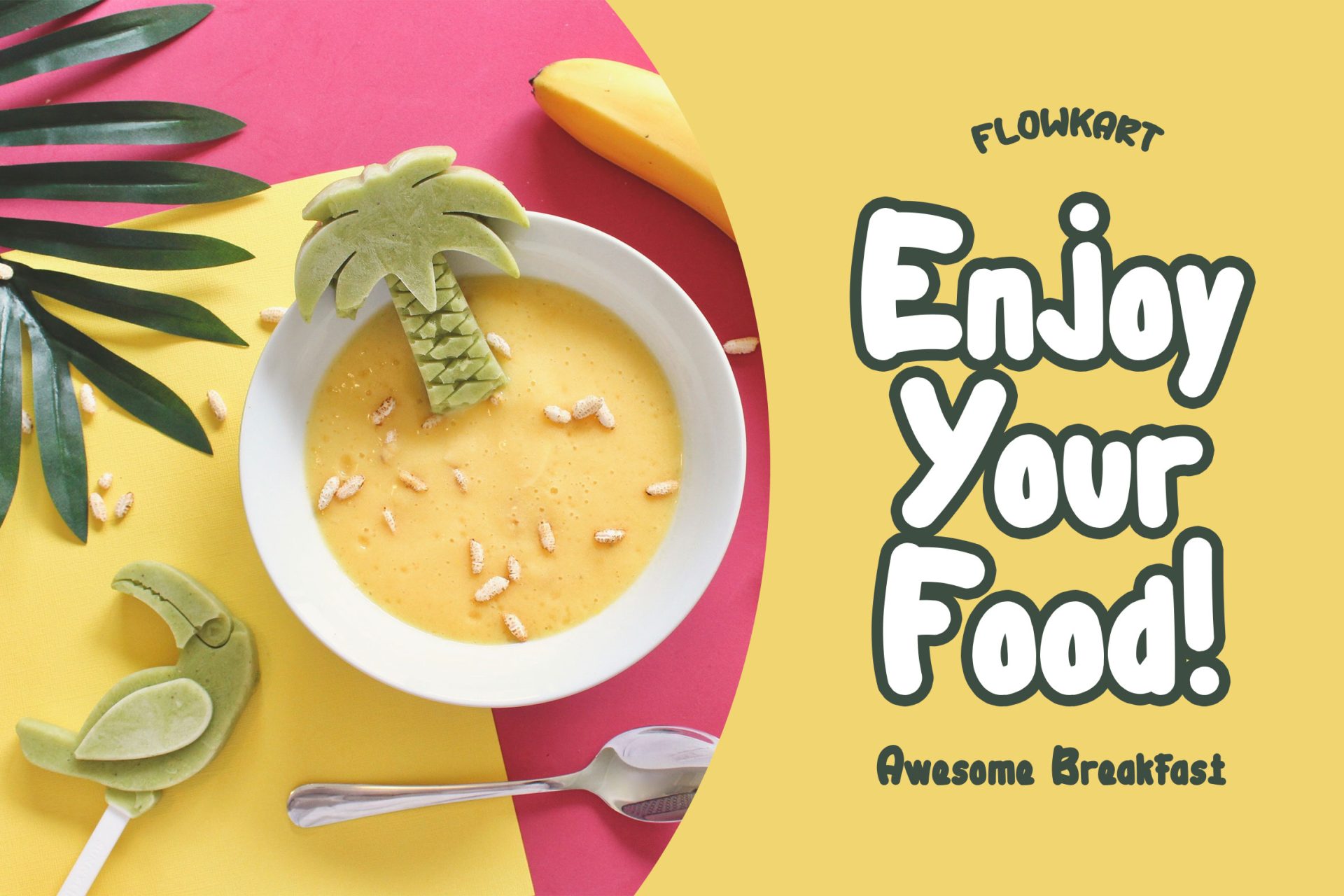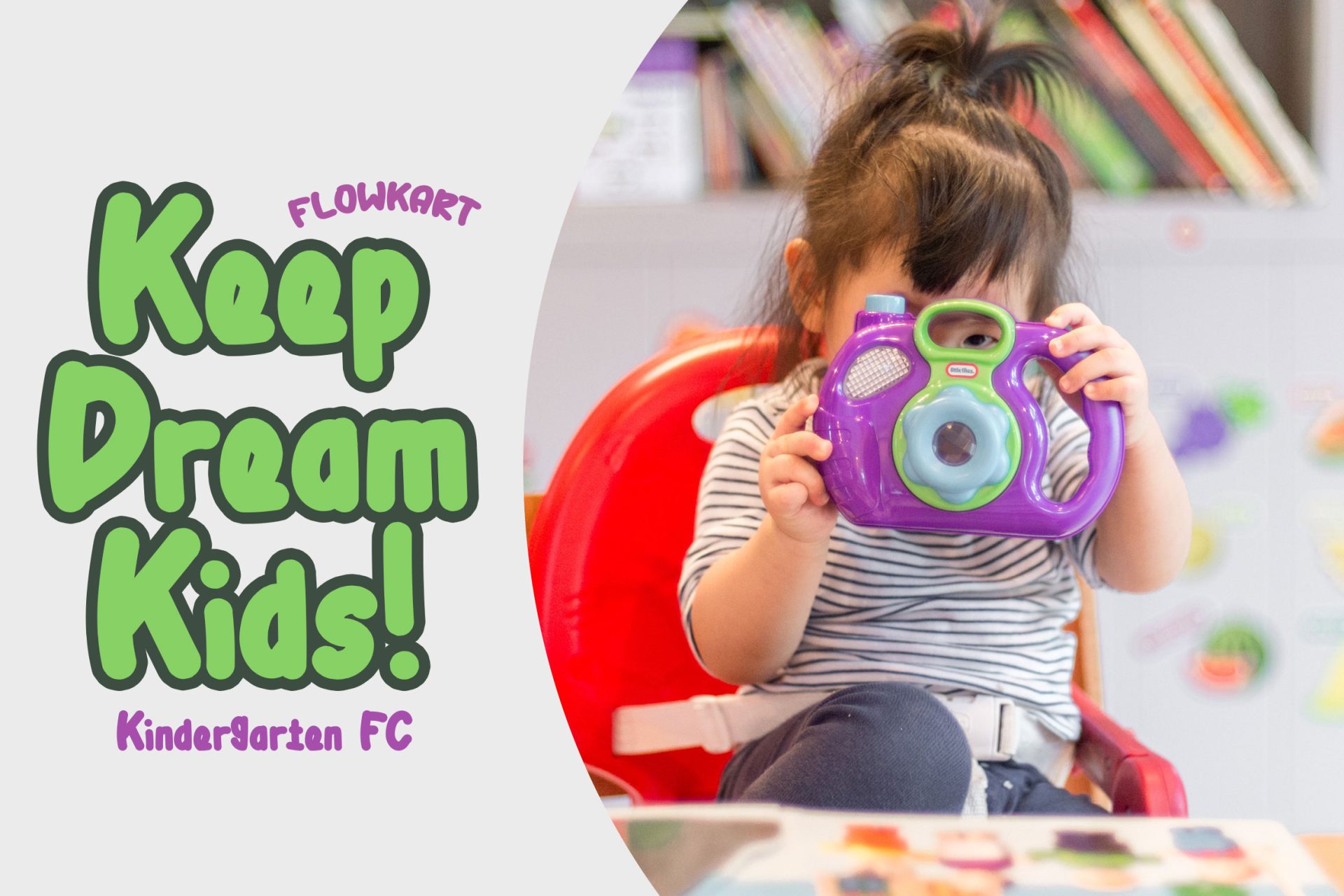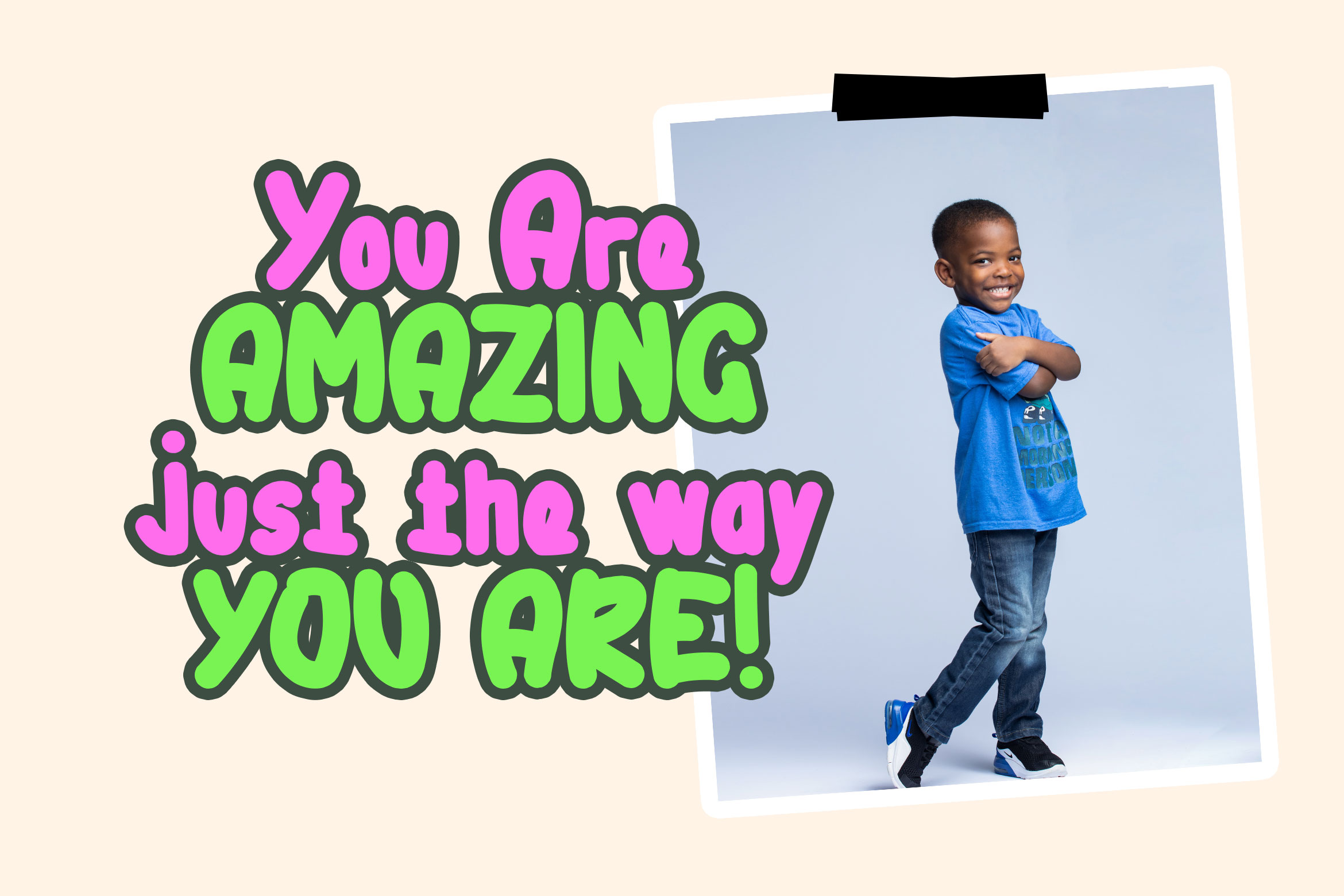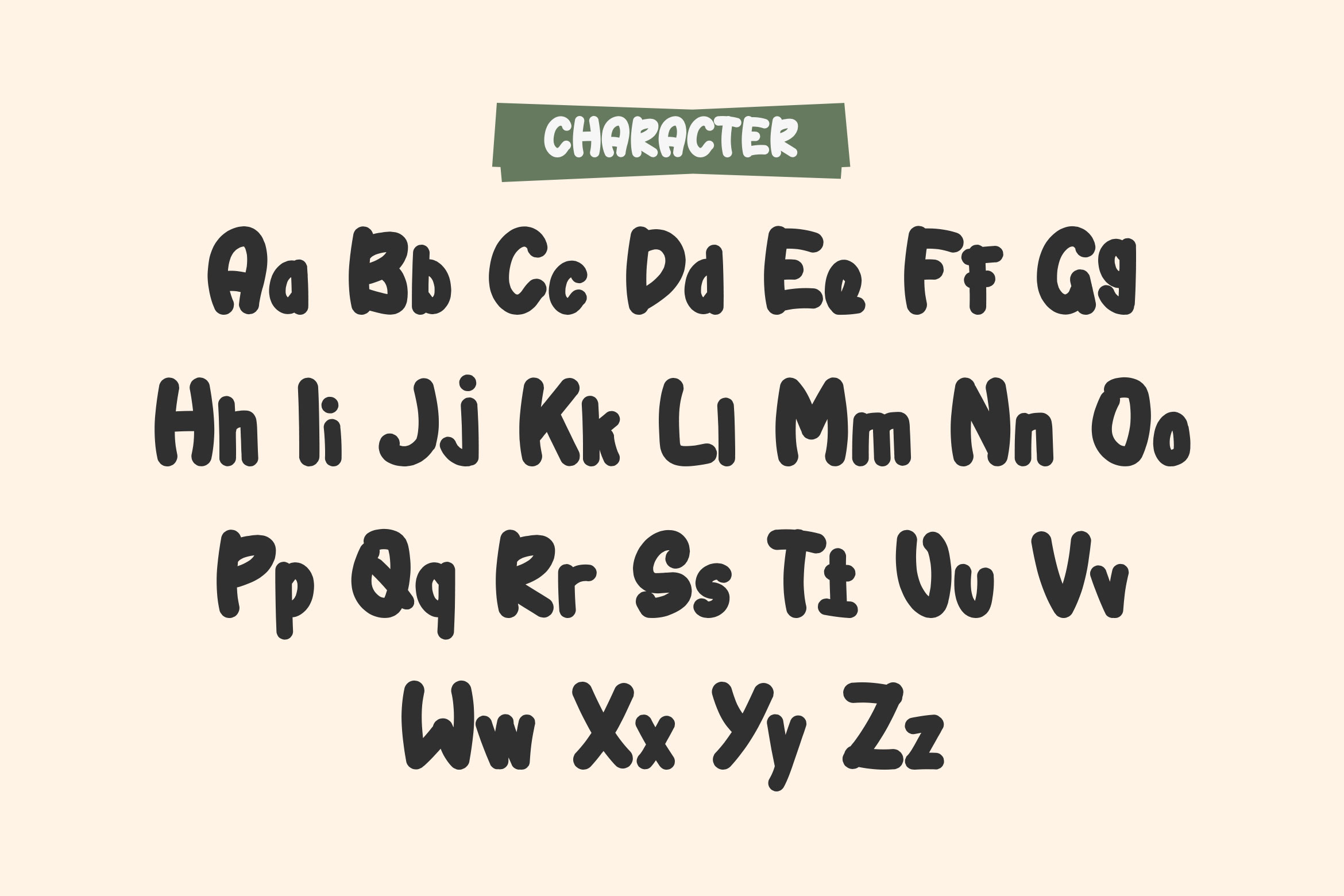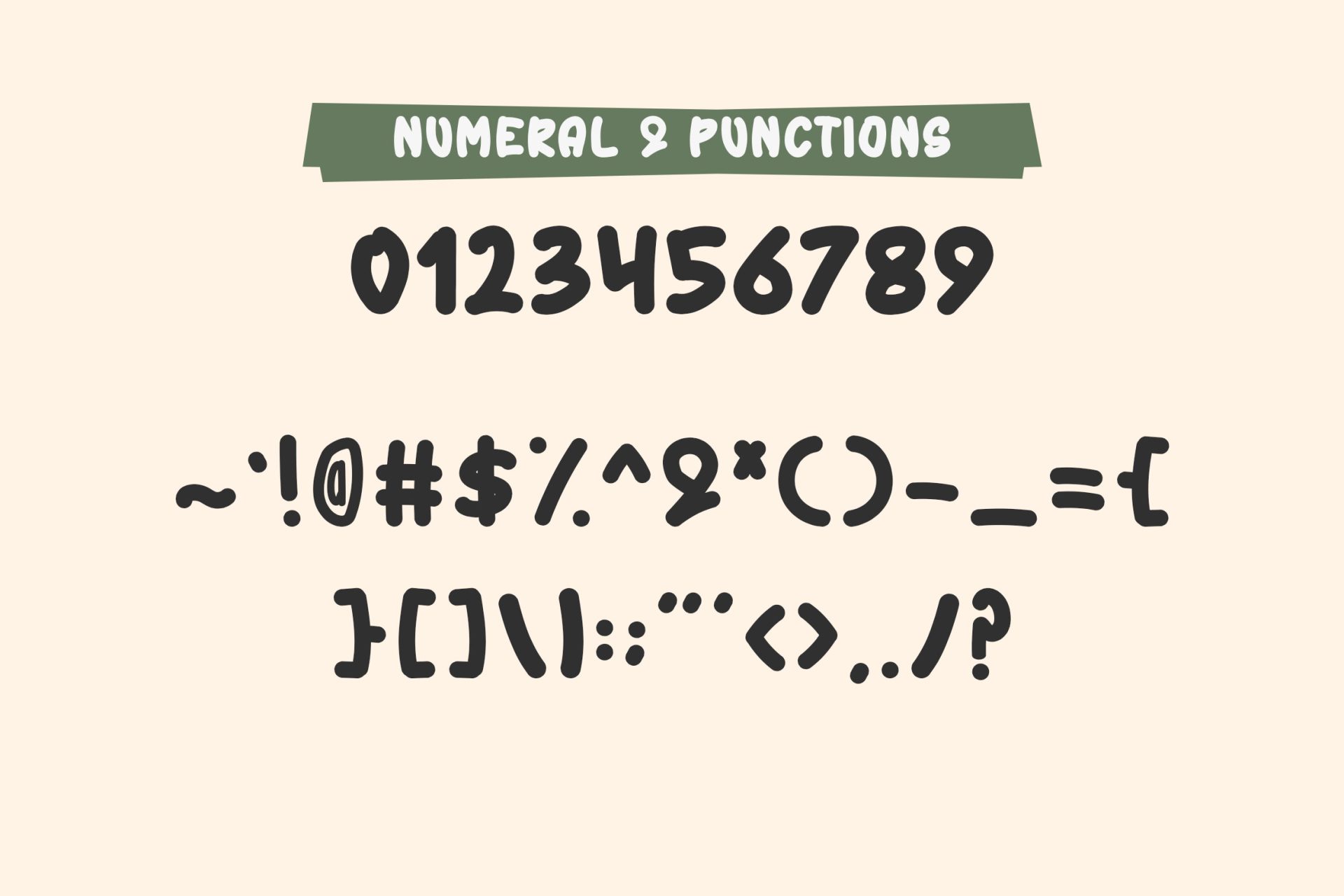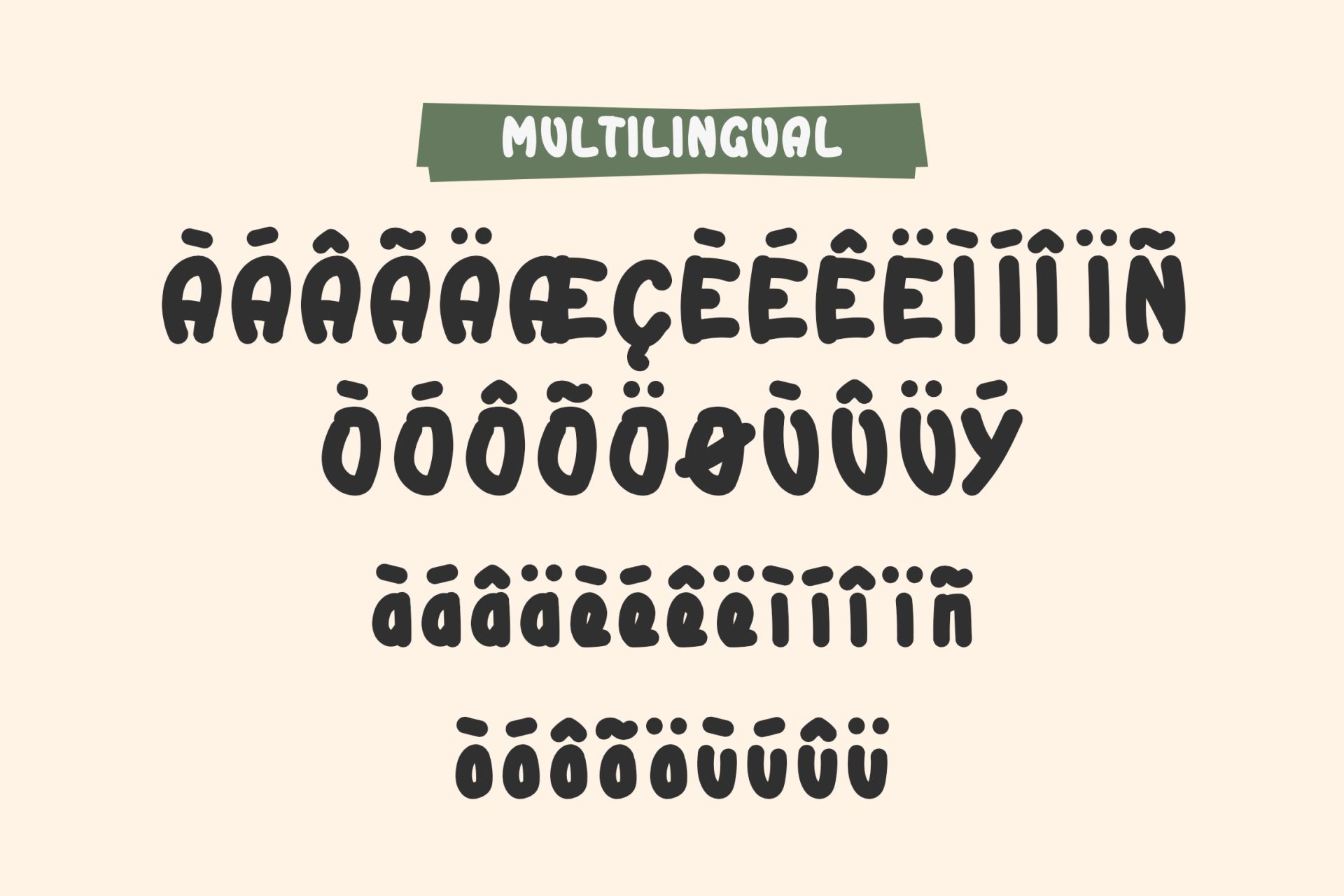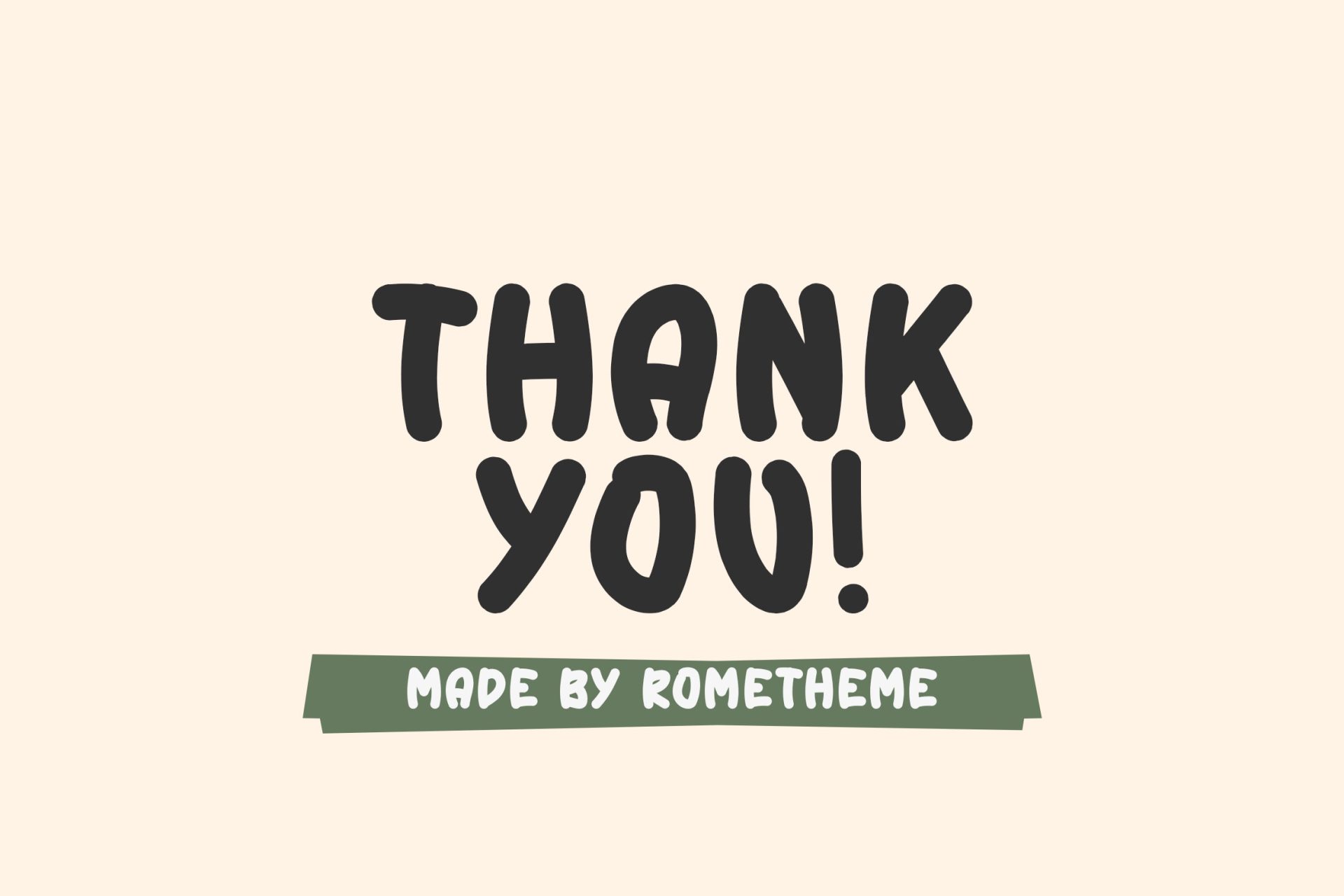
Introducing Flowkart – Handdrawn Font by KrakenBox
Flowkart is a hand-drawn with alternates font. Fall in love with its incredibly versatile style and use it to create beautiful designs!
**Flowkart is best for:**
– logos, branding, & Signatures.
– Flyers, Album cover, Magazine, & Advertisements.
– Website design , design blogs, & fashion.
– Quote graphics for social media.
– and also it works great for other projects.
– Character Set (Uppercase and Lowercase)
– Numerals and Punctuation (OpenType Standard)
– Accents (Multilingual characters)